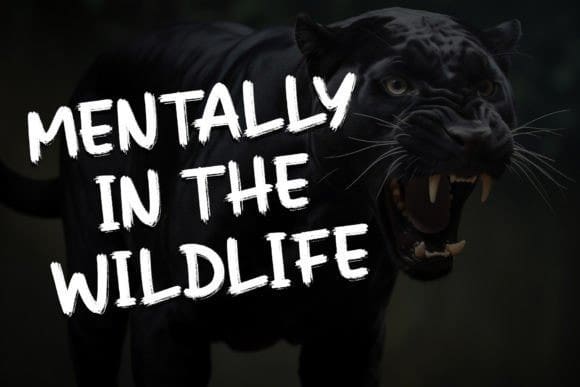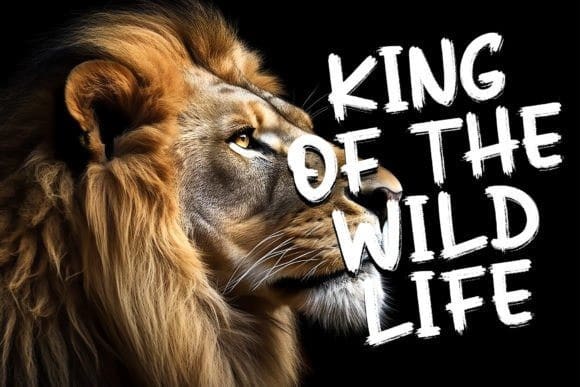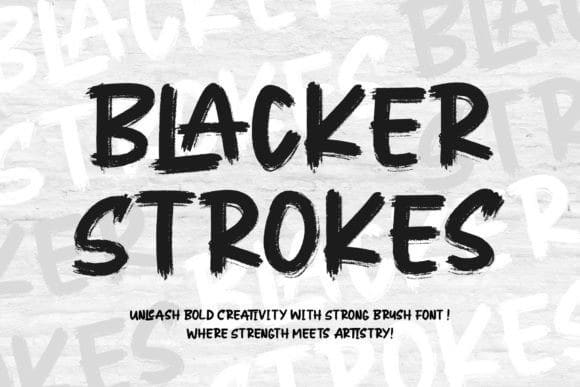
Blacker Strokes Font
Blacker Strokes Font is a font embodying the wild beauty of natural brush strokes. Elevate logos, branding, and more with its mesmerizing design. Versatile and impactful, it adds character to any project. With PUA code for easy access to captivating glyphs, Blacker Strokes is your artistic ally for limitless design possibilities and lasting impressions.